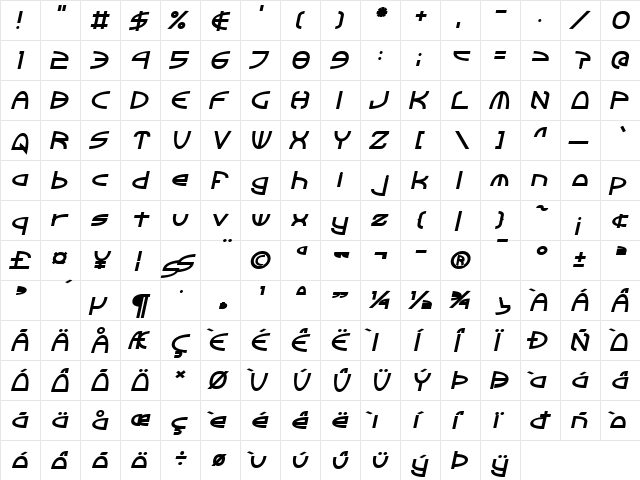
Design Context for Tinker Round Bold Italic Typeface
Tinker Round Bold Italic softens its letterforms with rounded terminals, giving it an approachable, friendly quality that works well in consumer-facing and digital contexts. Its italic angle brings a sense of urgency and motion to the letterforms. Its bold stroke weight gives it real presence on the page.
A natural fit for tech startups, health and wellness brands, children's products, and friendly consumer apps.
Font Pairing: Pairs well with a rounded or humanist sans for body copy, maintaining the friendly tone without relying on Tinker Round Bold Italic to carry extended reading.
Pro Tip: Pair Tinker Round Bold Italic with a geometric sans for a balanced system — the rounded softness works as a warm counterpoint to harder-edged companions.